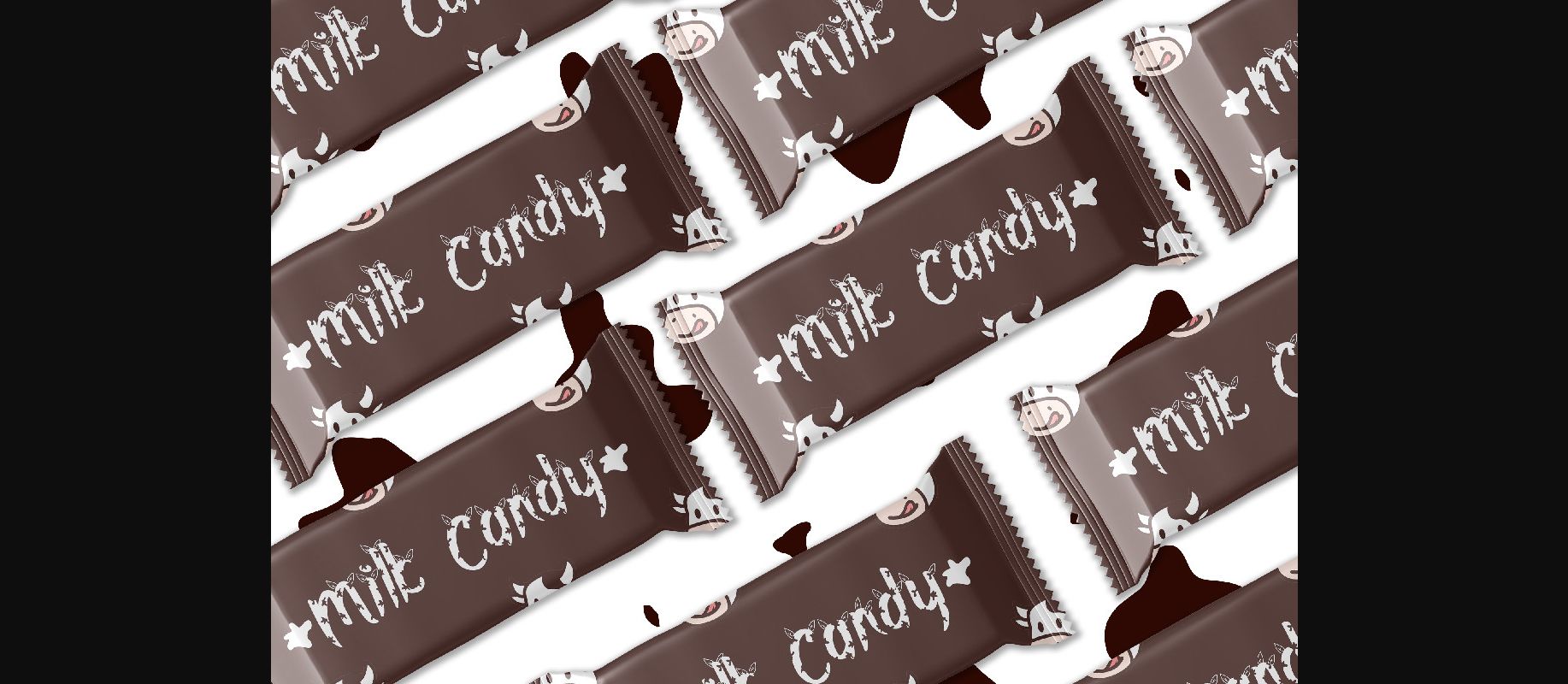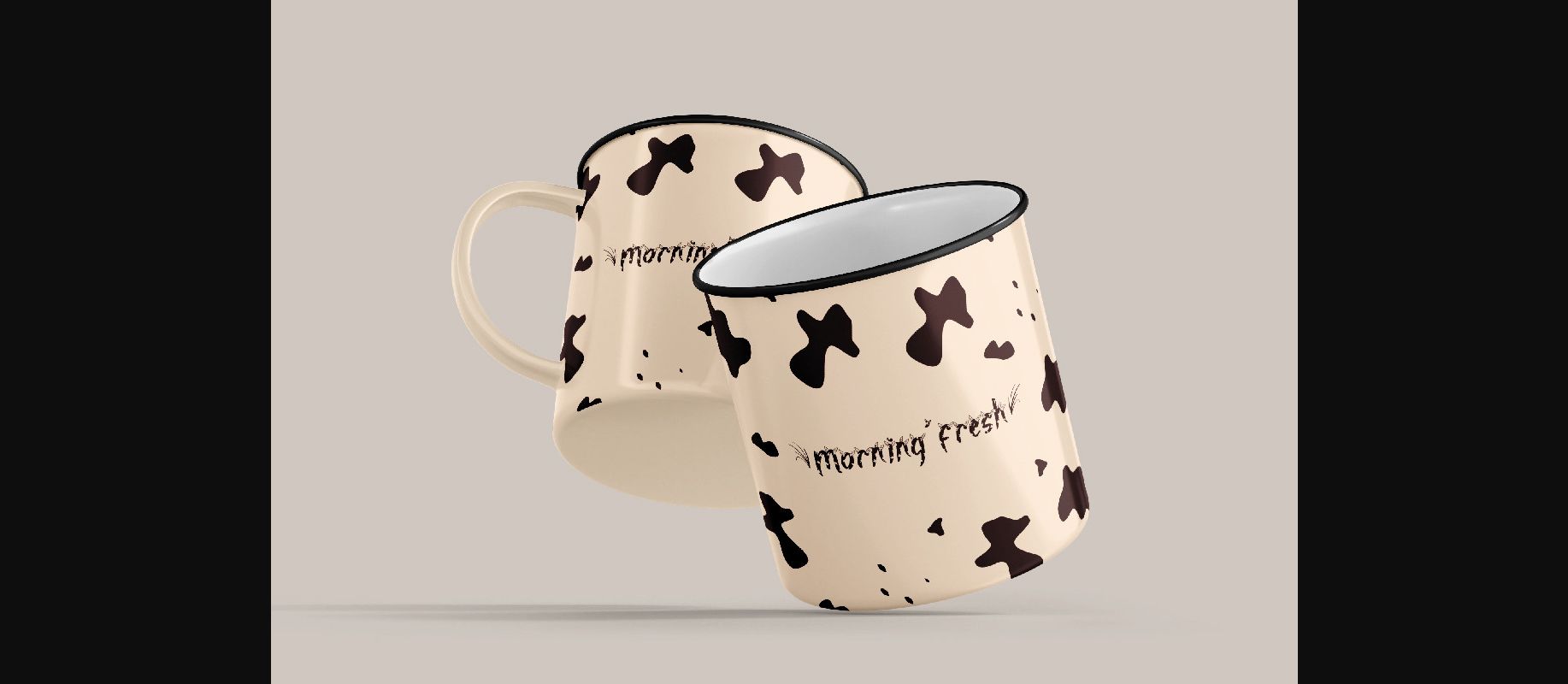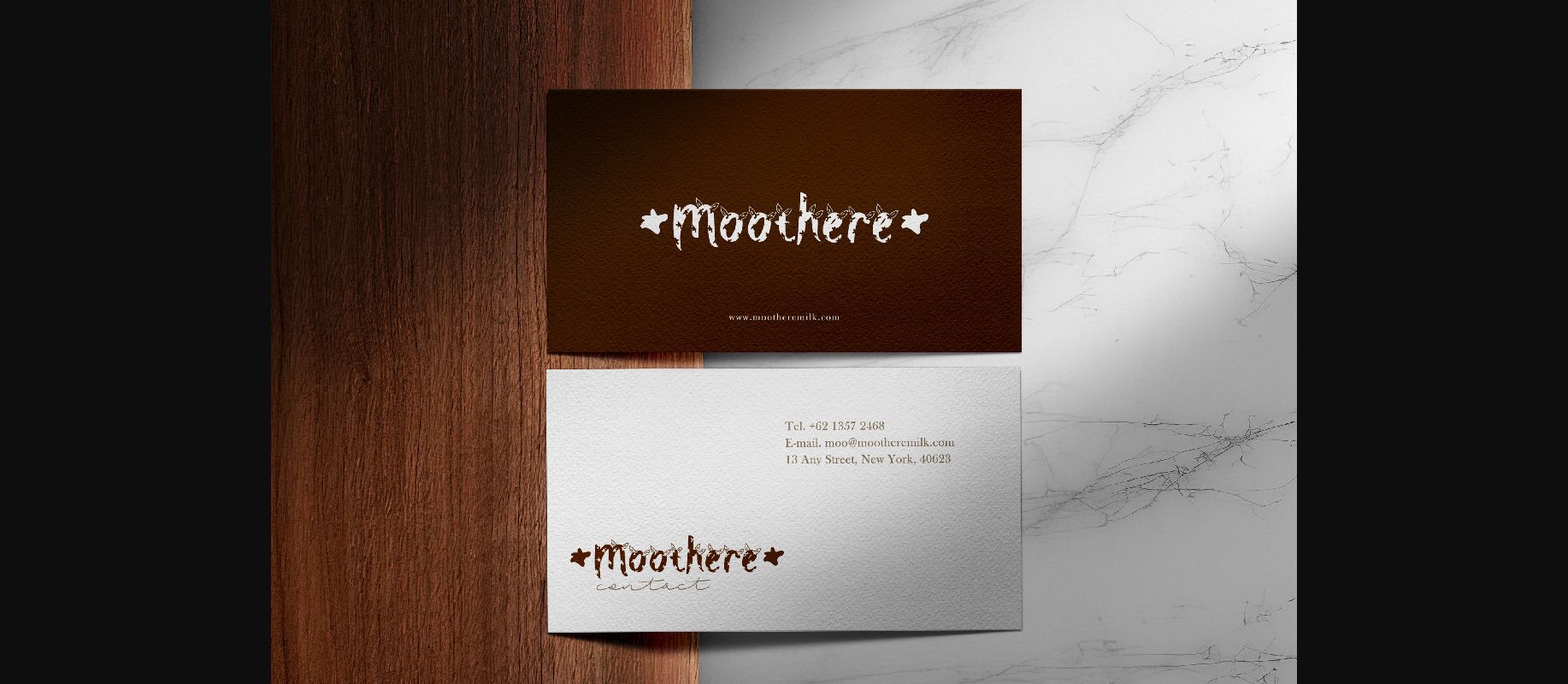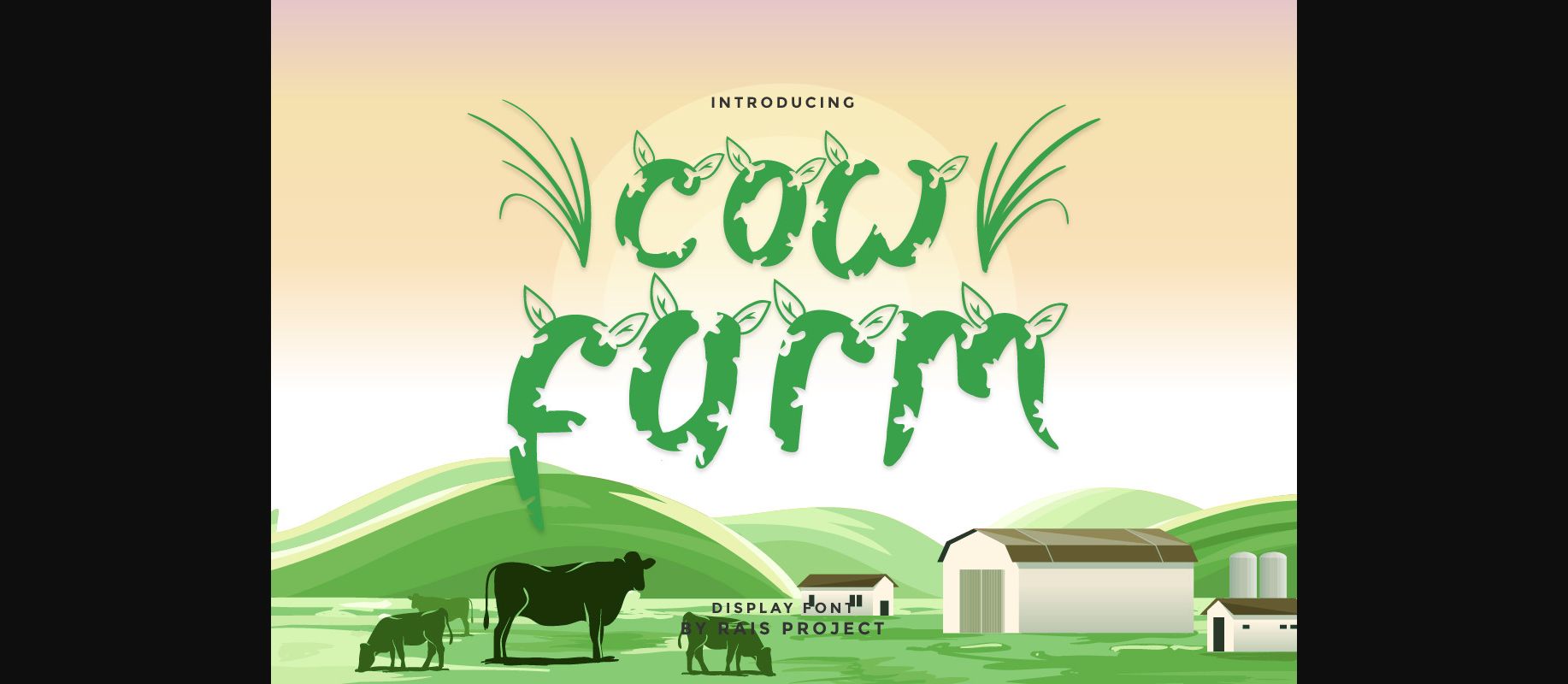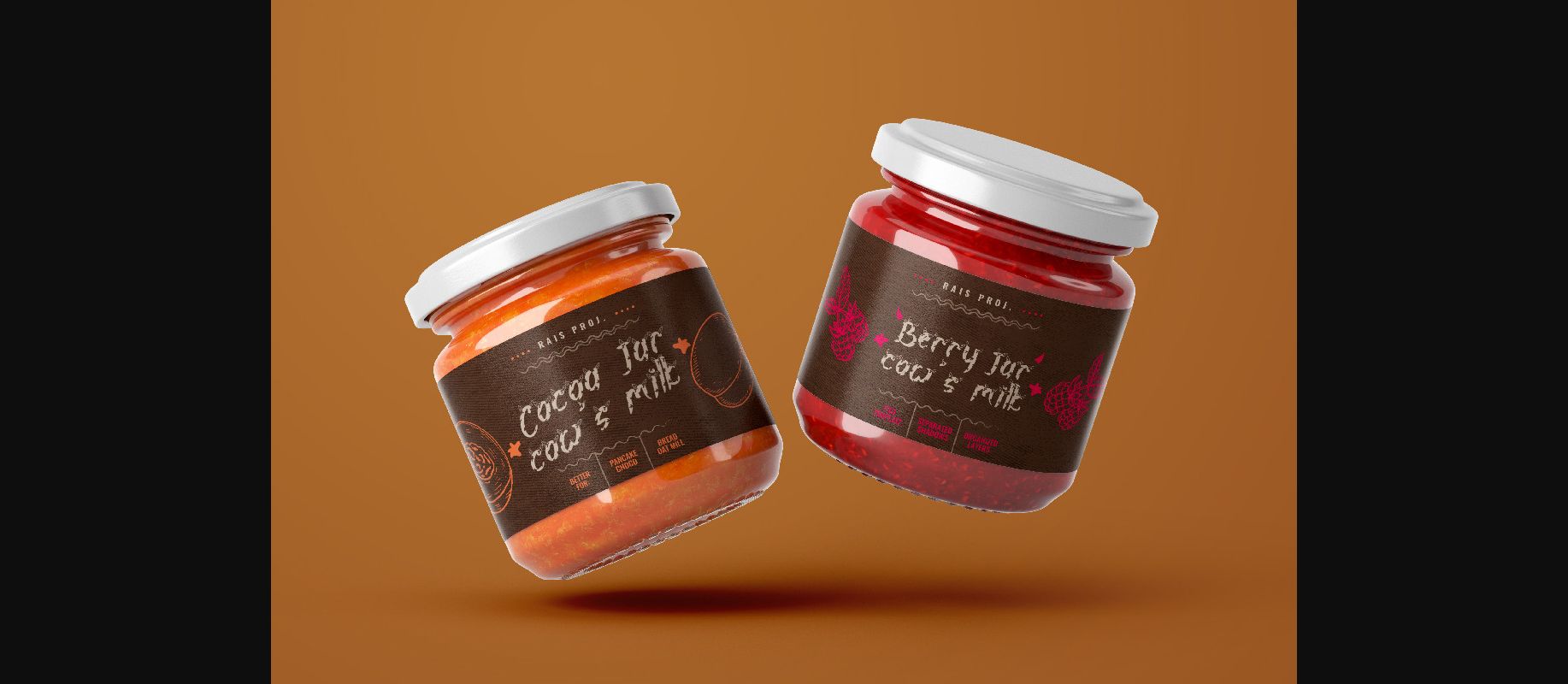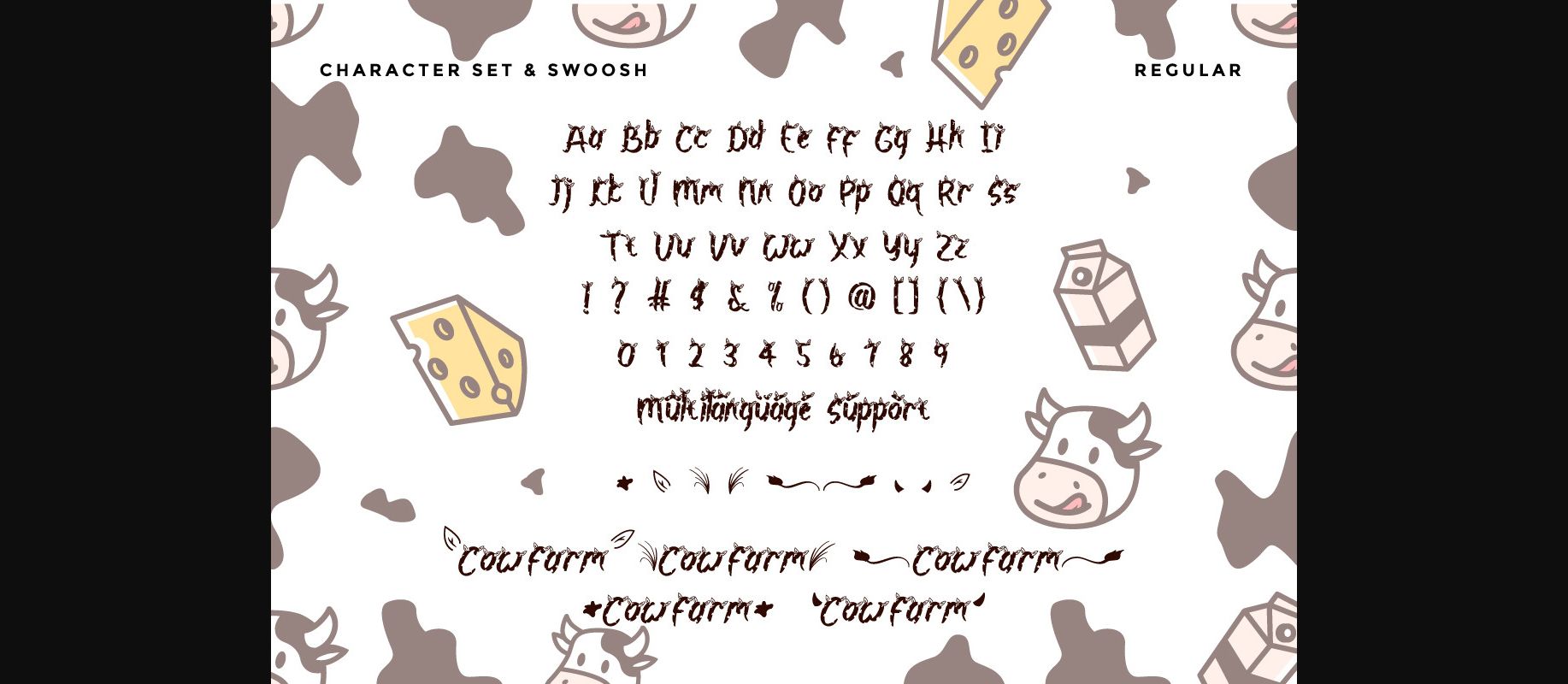
About Cow Farm Font
Cow Farm is a fun and uniquely shaped decorative font. Whether you use it for cartoon related designs, children games or just any creation that requires a lovely touch, this font will be an amazing choice.